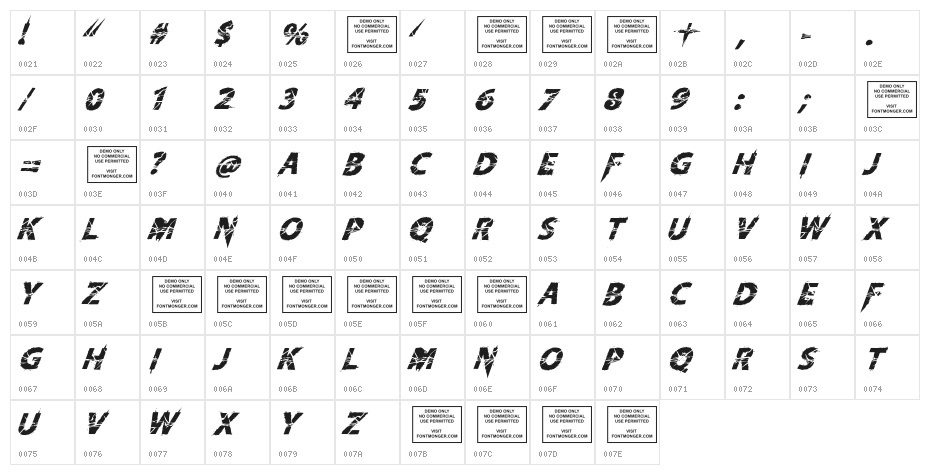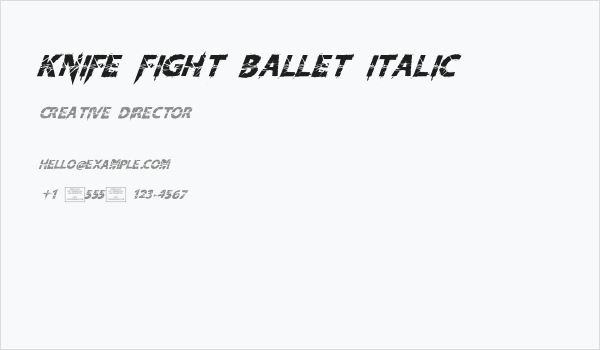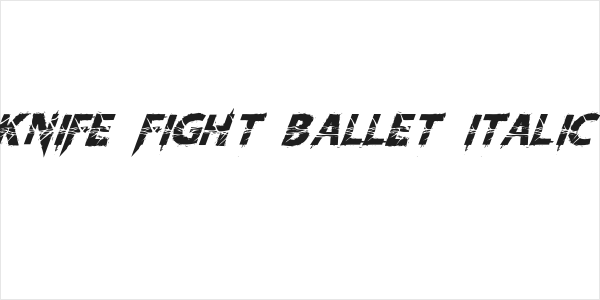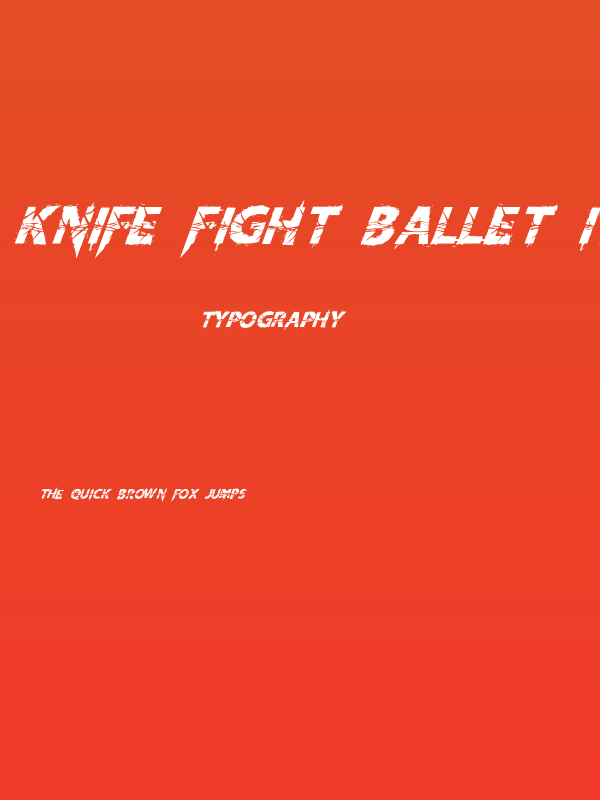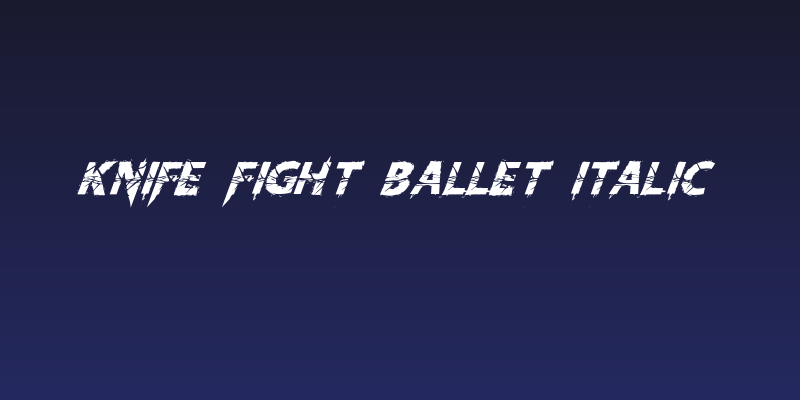
Knife Fight Ballet Italic Font
Knife Fight Ballet Italic Description
This font features a bold and aggressive style with a distressed, grunge-like texture. The characters are italicized, giving them a dynamic and forward-leaning appearance. Each letter is uniquely designed with sharp edges and irregular cuts, creating a sense of movement and chaos. The uppercase and lowercase letters maintain a consistent style, while the numerals and special characters follow the same rugged aesthetic. The overall look is edgy and modern, making it suitable for projects that require a strong visual impact.
Overall StyleModern, Edgy
Proposed ProjectsIdeal for music album covers, edgy posters, streetwear branding, and video game graphics.